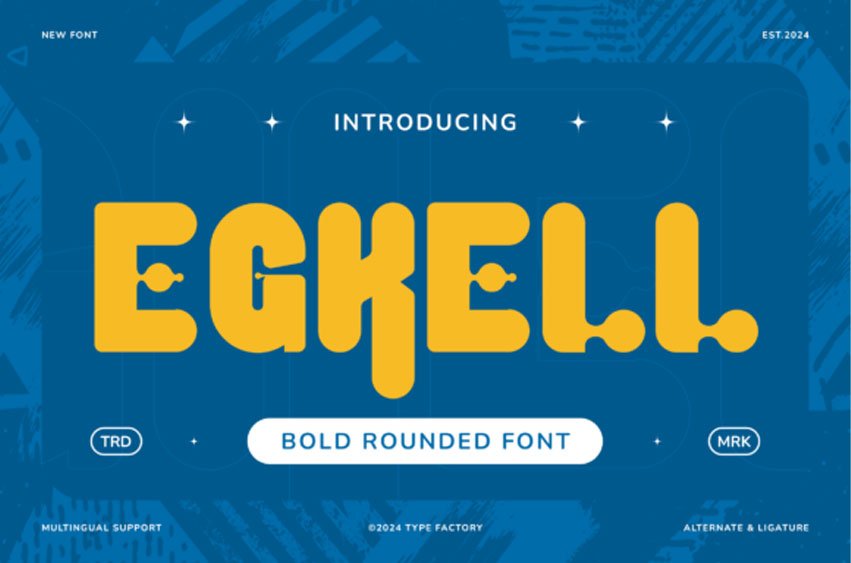
Egkell Font is a bold rounded display font built with thick strokes and soft curved terminals. The letterforms combine geometric structure with playful details, creating a friendly and eye-catching appearance for large-scale typography.
Designed for headlines and strong visual statements, Egkell works well for posters, branding, social media graphics, event promotions, packaging, web banners, and merchandise design. The rounded edges give it an approachable tone, while the solid weight keeps it highly visible in both print and digital layouts.
The font includes uppercase, lowercase, numerals, punctuation, multilingual support, and selected ligatures to provide flexible typographic combinations.